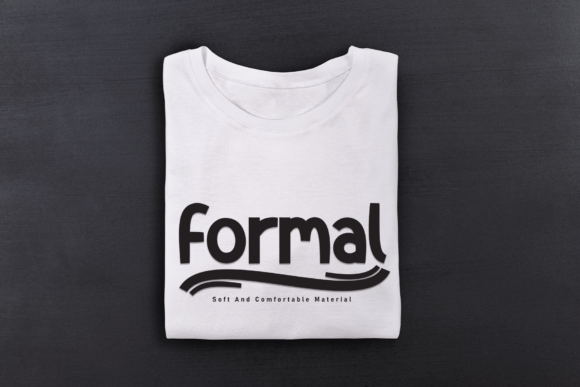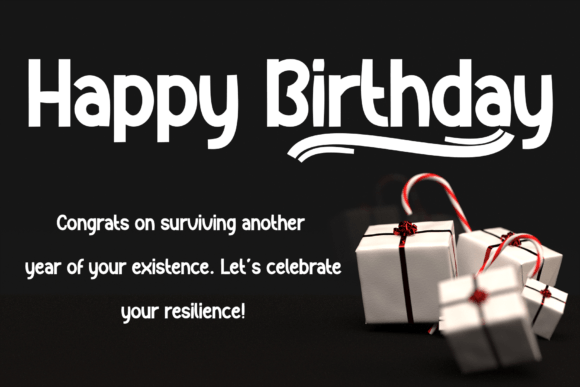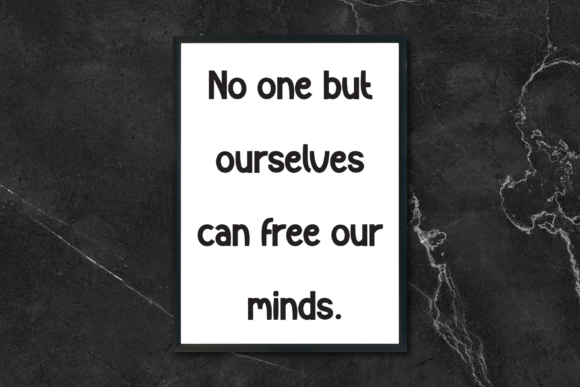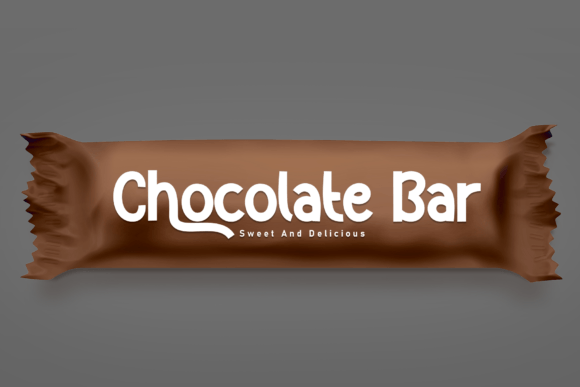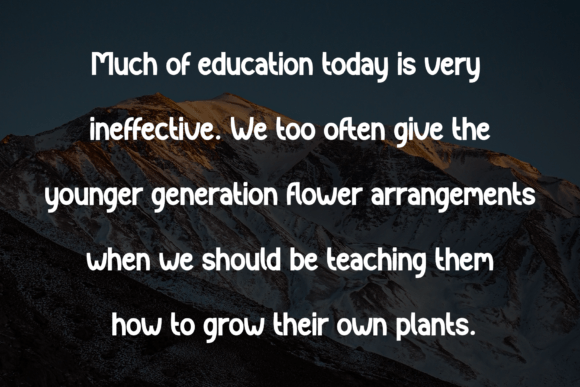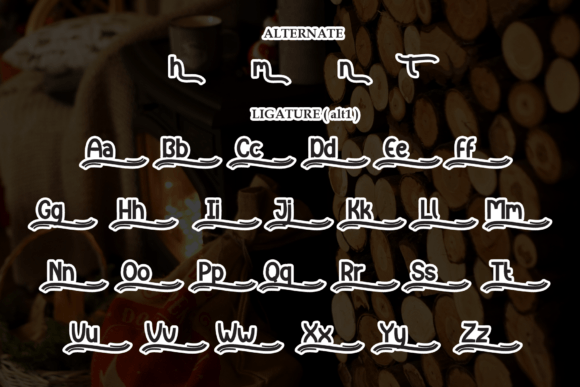
Christmas Firewood Font: A Sweet and Friendly Handwritten Font for Your Holiday Designs
Are you looking for a font that captures the warmth and coziness of the holiday season? Look no further than the Christmas Firewood font! This sweet and friendly handwritten font is perfect for designers and crafters who want to add a personal touch to their holiday designs. In this article, we’ll take a closer look at the Christmas Firewood font, its features, and how you can use it to create stunning holiday designs.
What is Christmas Firewood Font?
Christmas Firewood is a beautiful handwritten font that is inspired by the natural and rustic feel of firewood. Its unique style makes it incredibly fitting for a wide range of designs, from holiday cards and invitations to packaging and branding. The font is designed to be highly versatile, making it perfect for designers and crafters who want to create unique and eye-catching designs.
Features of Christmas Firewood Font
The Christmas Firewood font has several features that make it stand out from other fonts. Some of its key features include:
- Handwritten style: The font has a sweet and friendly handwritten style that gives it a personal touch.
- Natural and rustic feel: The font is inspired by the natural and rustic feel of firewood, making it perfect for holiday designs.
- Highly versatile: The font is incredibly versatile and can be used for a wide range of designs, from holiday cards and invitations to packaging and branding.
- Unique style: The font has a unique style that makes it stand out from other fonts.
How to Use Christmas Firewood Font
The Christmas Firewood font is easy to use and can be incorporated into a wide range of designs. Here are some ideas for using the font:
- Holiday cards and invitations: Use the font to create beautiful and personalized holiday cards and invitations.
- Packaging and branding: Use the font to create unique and eye-catching packaging and branding for your holiday products.
- Social media graphics: Use the font to create festive and engaging social media graphics for the holiday season.
- Blog posts and articles: Use the font to add a personal touch to your holiday blog posts and articles.
Tips for Using Christmas Firewood Font
Here are some tips for using the Christmas Firewood font:
- Pair it with other fonts: Pair the Christmas Firewood font with other fonts to create a unique and eye-catching design.
- Use it in combination with images: Use the font in combination with images to create a visually appealing design.
- Experiment with different colors: Experiment with different colors to find the perfect combination for your design.
- Keep it simple: Keep your design simple and clean to ensure that the font is the focal point.
The Christmas Firewood font is a sweet and friendly handwritten font that is perfect for designers and crafters who want to add a personal touch to their holiday designs. Its natural and unique style makes it incredibly fitting for a wide range of designs, from holiday cards and invitations to packaging and branding. With its highly versatile design and ease of use, the Christmas Firewood font is a must-have for anyone looking to create stunning holiday designs.